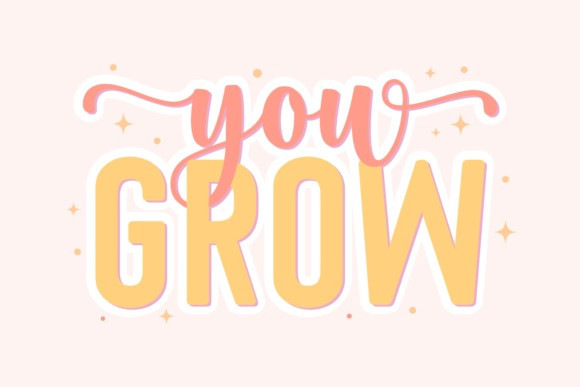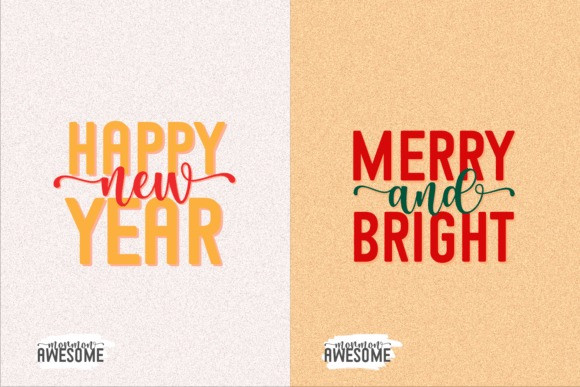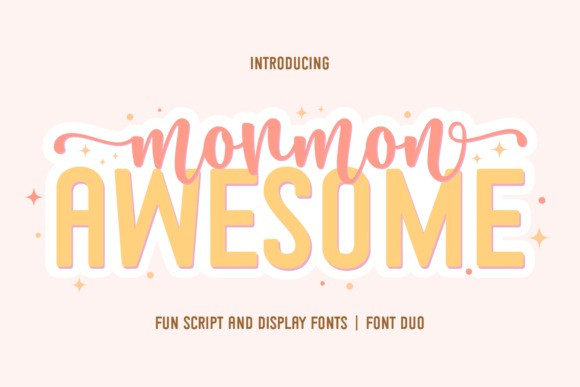
Mormon Awesome Font Duo
Mormon Awesome Font Duo is an incredibly charming and playful font duo, combining a bouncy, hand-lettered script with a bold, rounded display typeface for ultimate creative harmony.
The adorable script font is full of personality, featuring sweet swashes and a lovable, natural flow, while the accompanying display font boasts thick, rounded glyphs perfect for high-visibility titles.
This versatile typography pair is a must-have for designing cute children’s books, fun party invitations, vibrant t-shirts, adorable crafting projects, and cheerful social media graphics. The dual style offers endless layering and mixing possibilities, ensuring your design always feels fun, fresh, and irresistibly “awesome.”